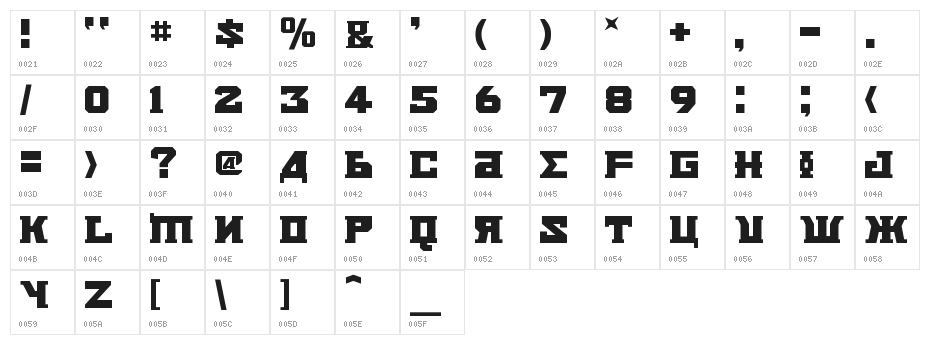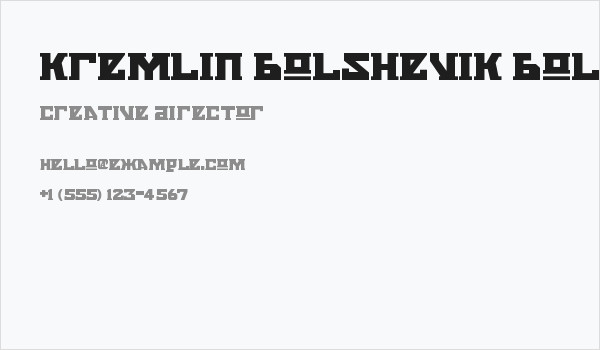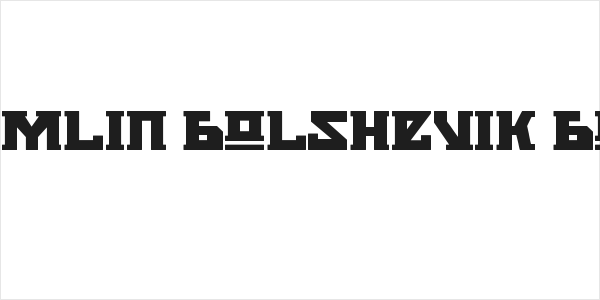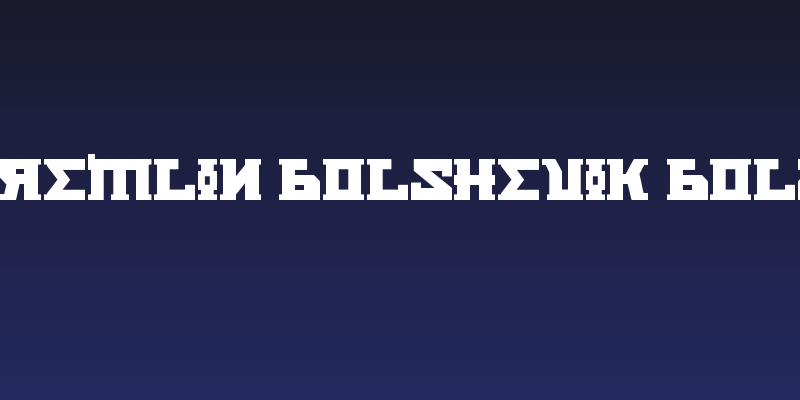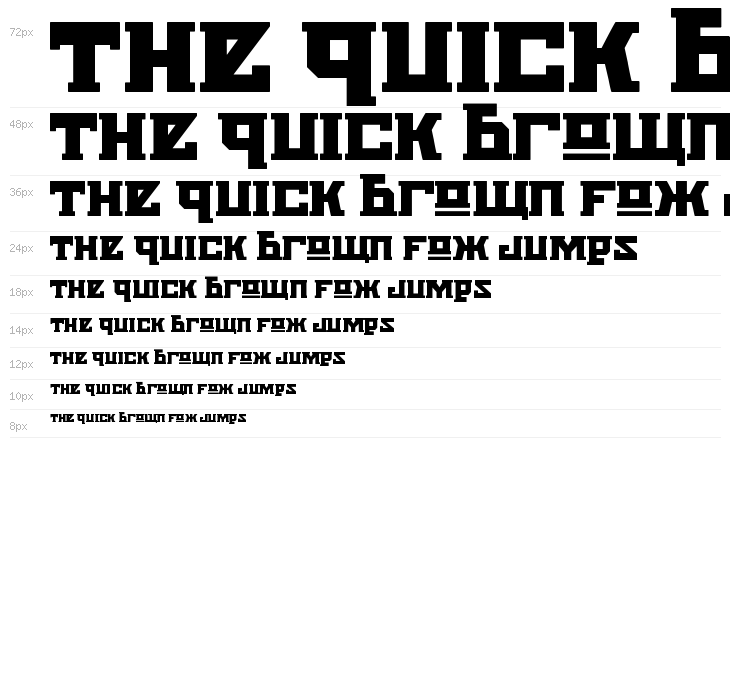
Kremlin Bolshevik Bold Font
Kremlin Bolshevik Bold Description
This bold and striking font features a distinctly geometric and angular design, reminiscent of Soviet-era typography. The characters are blocky and robust, with sharp edges and a strong presence. The uppercase and lowercase letters maintain a consistent style, emphasizing uniformity and strength. Numbers and special characters are equally bold, ensuring a cohesive look across all text elements. The font's unique style makes it ideal for projects that require a bold statement or a retro, industrial aesthetic.
| Proposed Projects | Ideal for posters, branding, and any design work that requires a bold, retro, or industrial feel. |